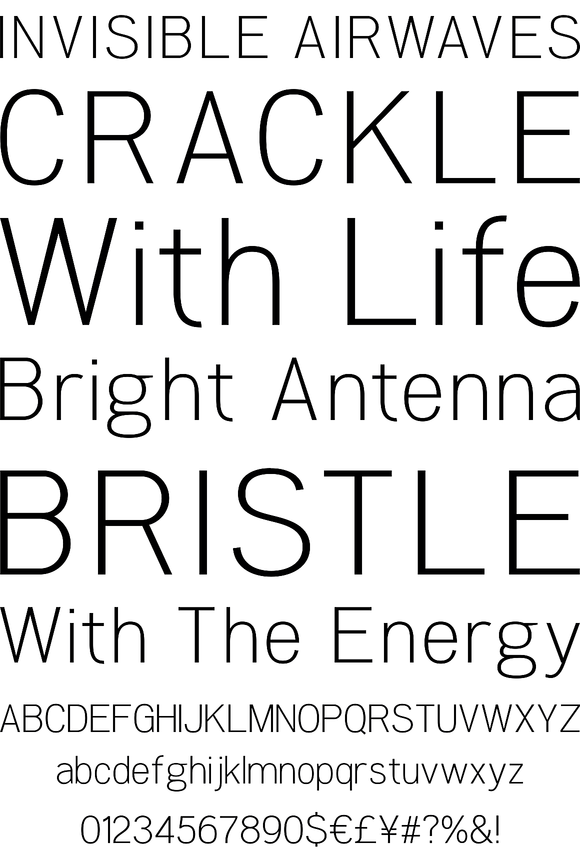
Woolworth
A modern sans serif typeface inspired by the early work of the Bauer type foundry. Each letter has been developed with careful attention towards balance and purity of form, creating a clean functional and optically correct typeface. This professional level font has a great range of weights perfectly suited for identity, editorial and on screen uses. Details include 7 weights, a Central, Eastern and Western European character set, manually edited kerning and Euro Symbol.